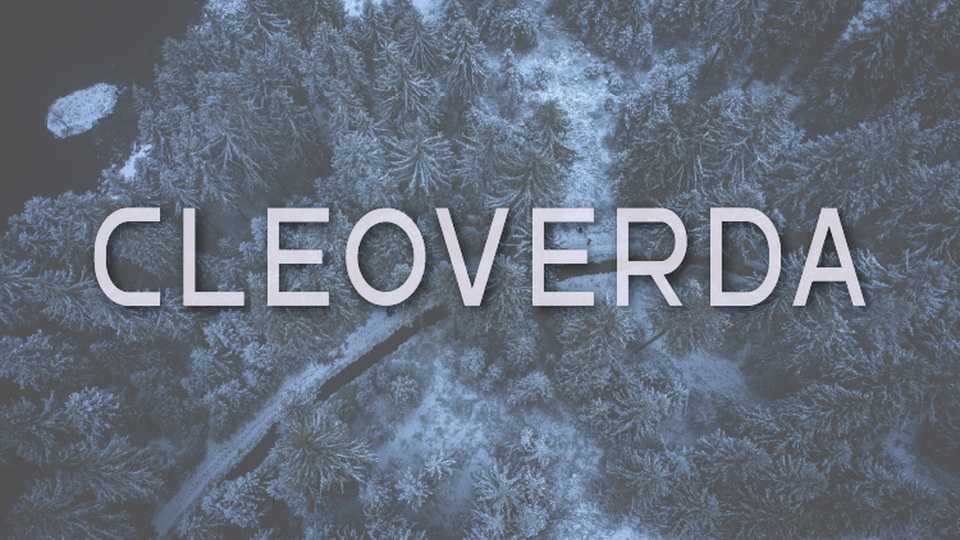
Download Cleoverda font, a neat and simple lettered sans serif typeface. No matter the topic, this font will be an incredible asset to your fonts’ library, as it has the potential to elevate any creation.